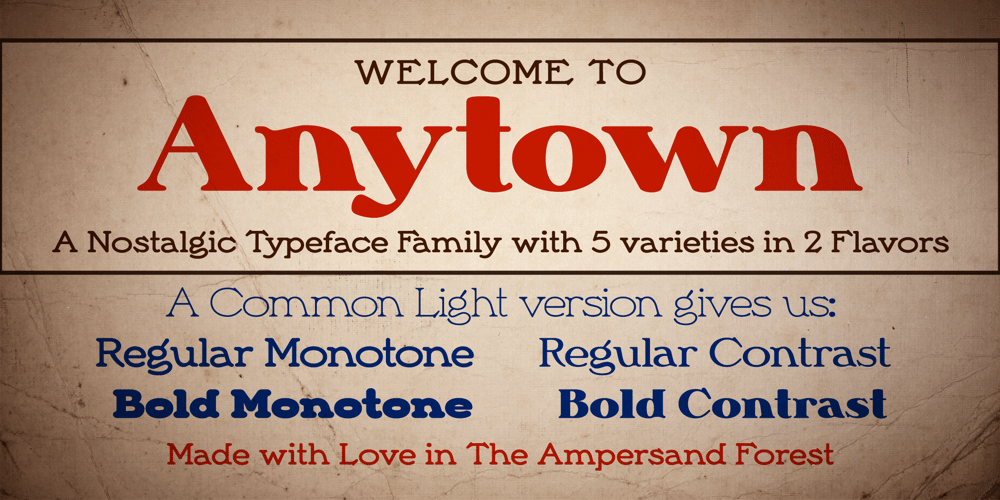
Anytown Font Family was designed by DC Scarpelli and published by The Ampersand Forest. Anytown contains 5 styles and family package options. Anytown is a nostalgic typeface family with a turn-of-the-century, Small-Town American feel.The common Light version springs off into two different flavors of Regular and Bold weight: Bubbly Monotone versions, where all the strokes keep the same width, and Contrast versions, where the thin horizontal strokes diverge from the thick vertical ones. The result is a versatile family that can produce lots of different looks!Anytown also has “upright” alternates, replacing characters with sloped shoulders with more usual, vertical stems.